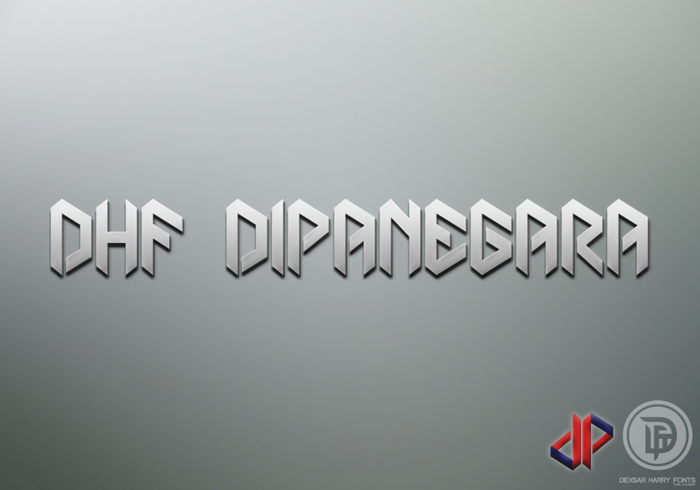
DHF Dipanegara Font
This font was inspired by DIPANEGARA LOGO that is dp. I like the DIPANEGARA LOGO so that I try for making a font is according to DIPANEGARA LOGO theme.
This font is *excellent*! I was scrolling through ''techno'' fonts for pages trying to find the perfect blend of sci if, horror, hard straight edge elements I was looking for and then BOOM